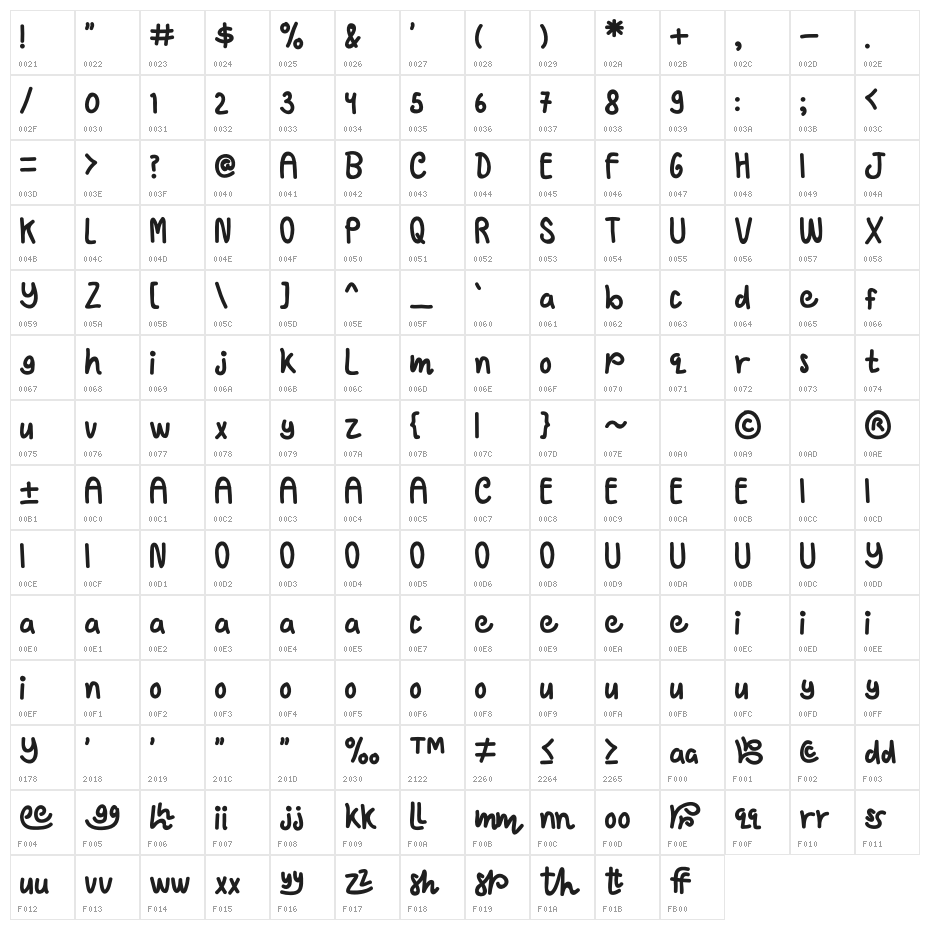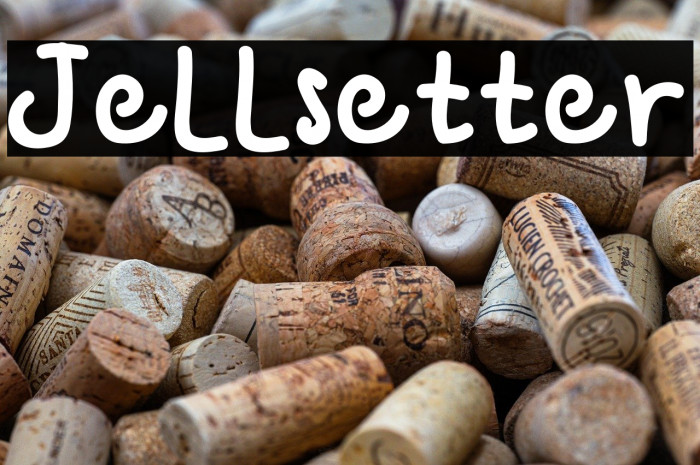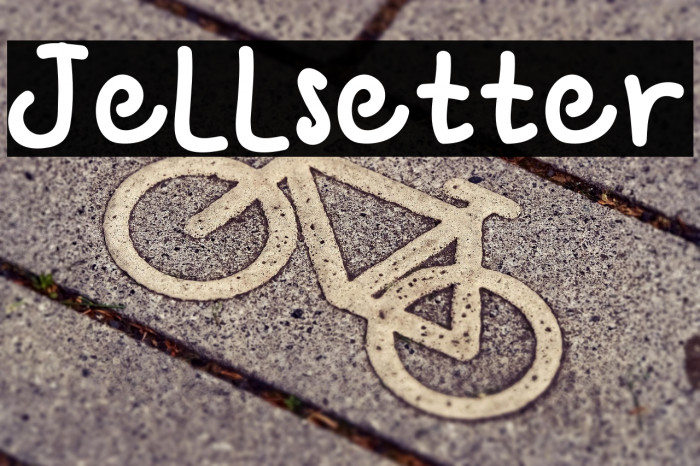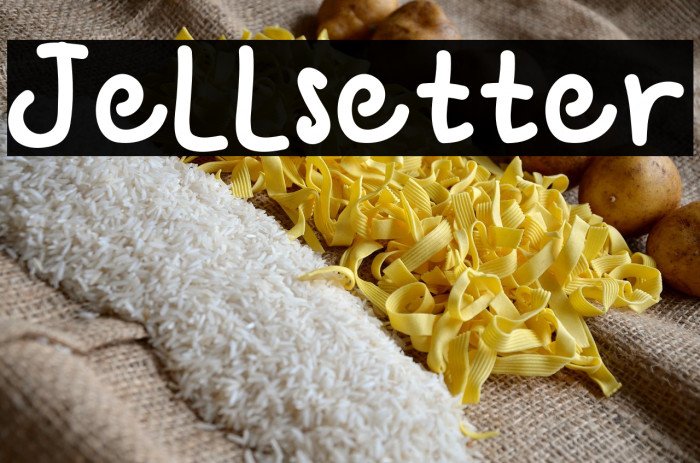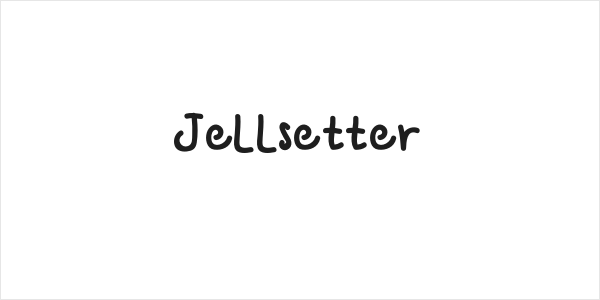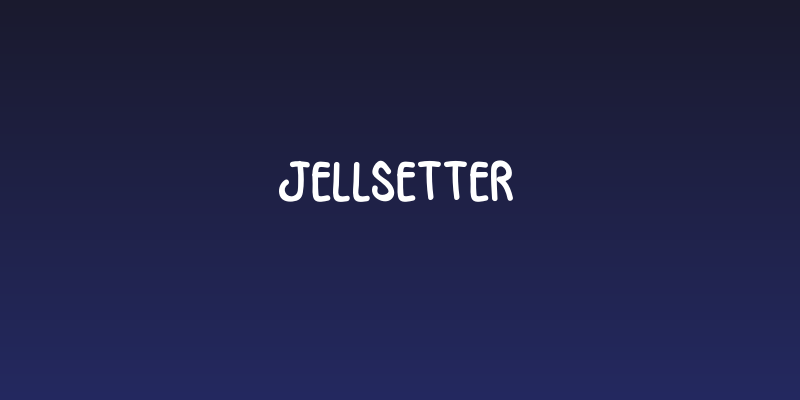
Jellsetter Font
Jellsetter Description
This playful and whimsical font features rounded, bold characters with a hand-drawn appearance. The letters are slightly irregular, giving them a casual, friendly feel. The uppercase and lowercase letters maintain a consistent style, with smooth curves and a uniform thickness throughout. Numbers and special characters are designed to match the overall aesthetic, making the font versatile for various uses. The font's informal style makes it ideal for projects that require a personal touch or a fun, approachable look.
| Overall Style | Playful, Casual |
| Proposed Projects | Ideal for children's books, greeting cards, playful branding, and casual social media graphics. |